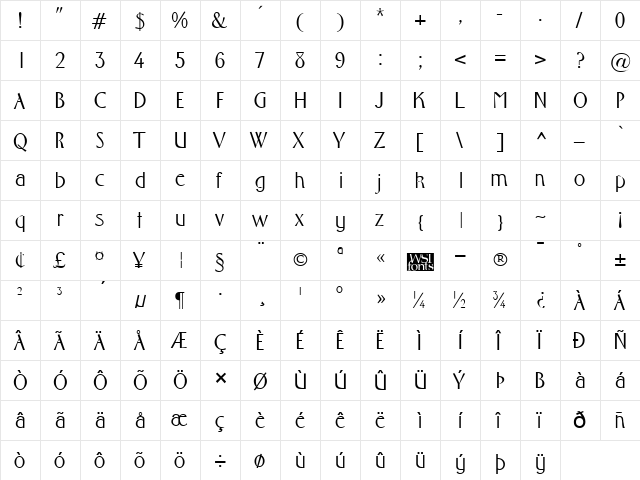
Foster Regular Font Preview
Foster Regular
Foster Regular Font Details
Design Context for Foster Typeface
Foster is a composed and adaptable typeface that performs quietly and consistently across a wide range of design contexts.